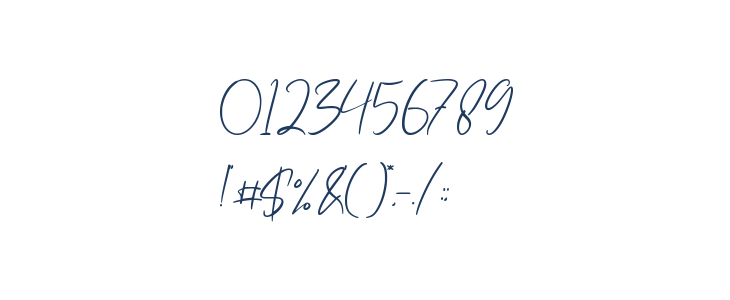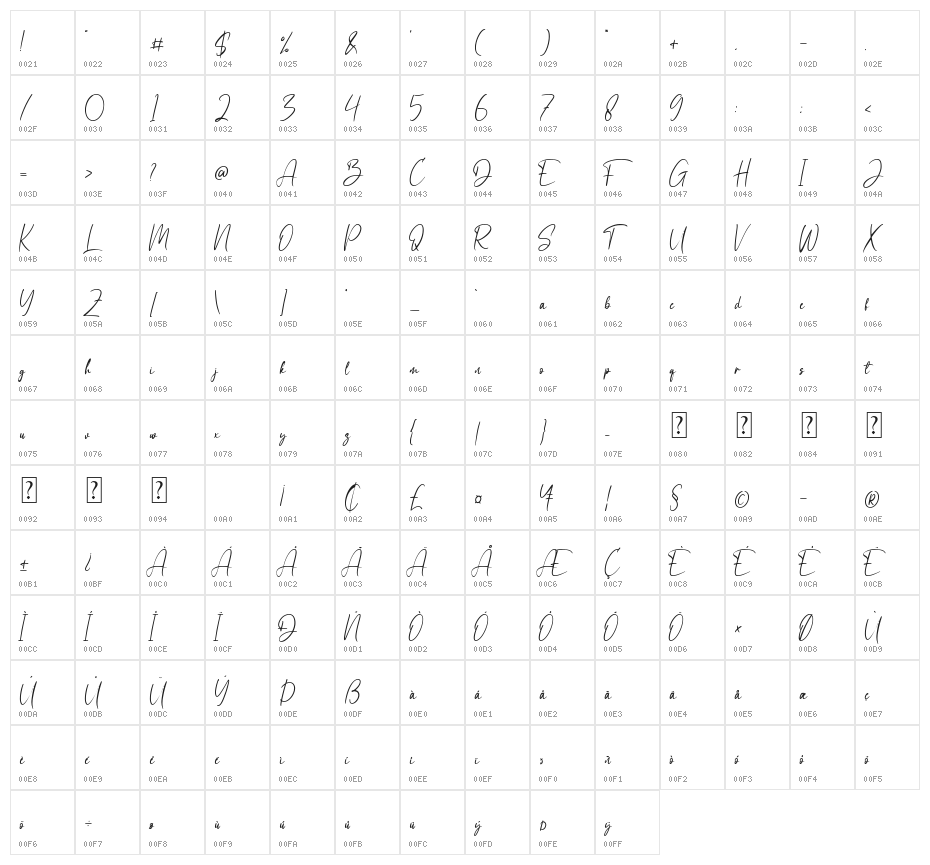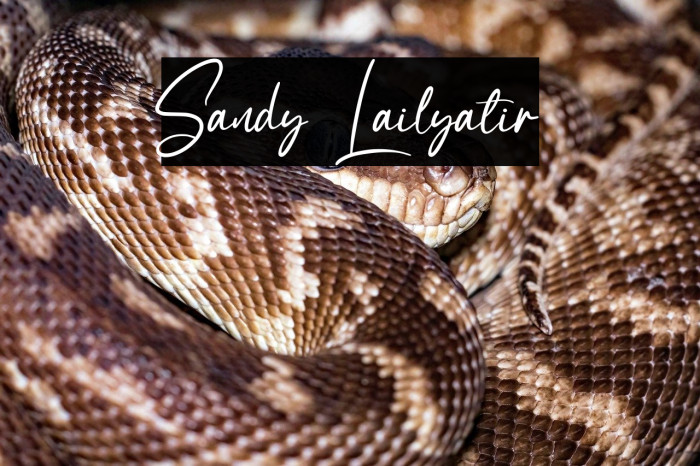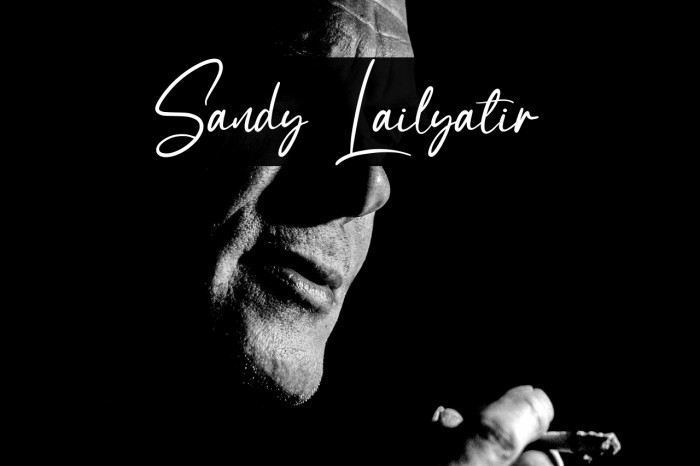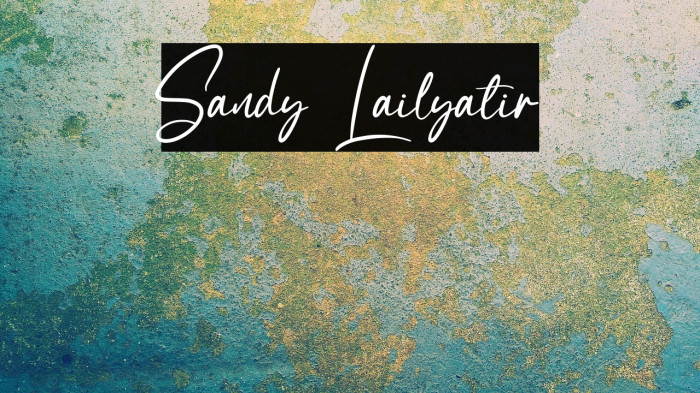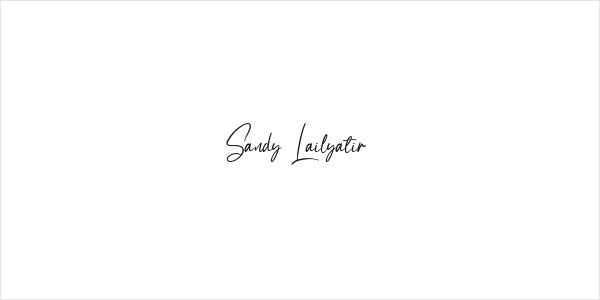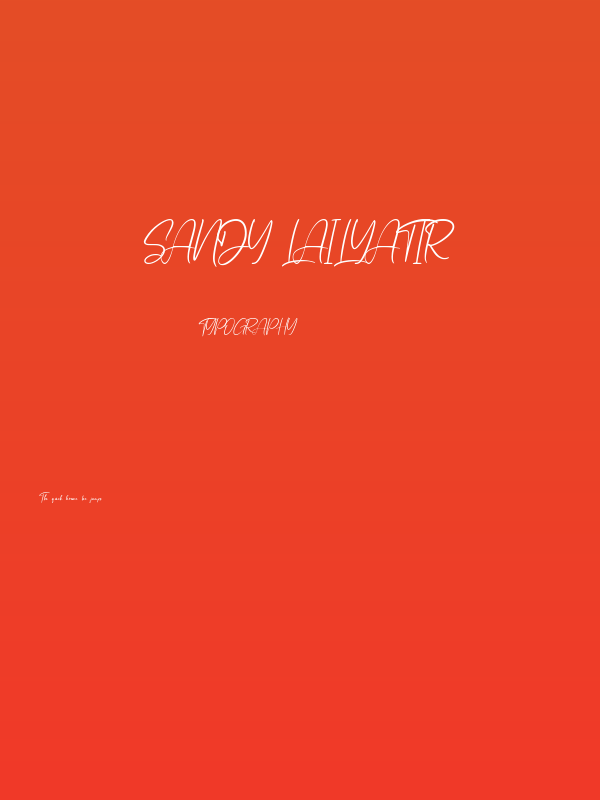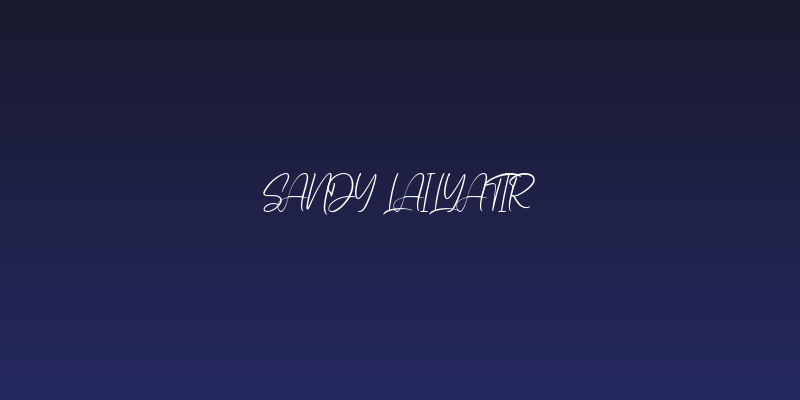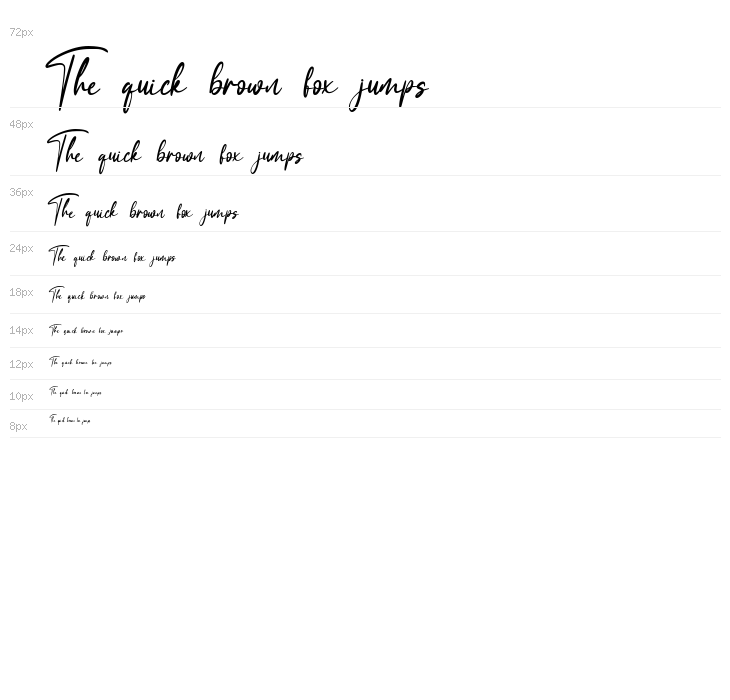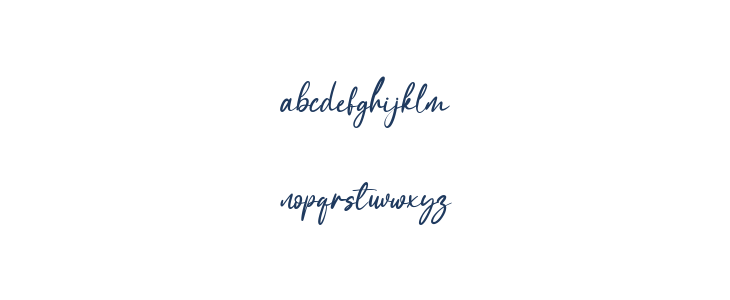
Sandy Lailyatir Font
Sandy Lailyatir Description
This font features an elegant and flowing script style, characterized by its smooth, cursive strokes and graceful curves. The uppercase letters are particularly ornate, with sweeping lines that create a sense of movement and fluidity. The lowercase letters maintain a consistent style, offering a harmonious blend with the uppercase. The numerals are distinct yet cohesive with the overall script design, providing a seamless integration. Special characters are thoughtfully crafted to match the font's aesthetic, ensuring versatility in various applications. The font's delicate and refined appearance makes it suitable for projects that require a touch of sophistication and elegance.
| Overall Style | Elegant, Decorative |
| Proposed Projects | Ideal for wedding invitations, elegant branding, personal stationery, and decorative signage. |